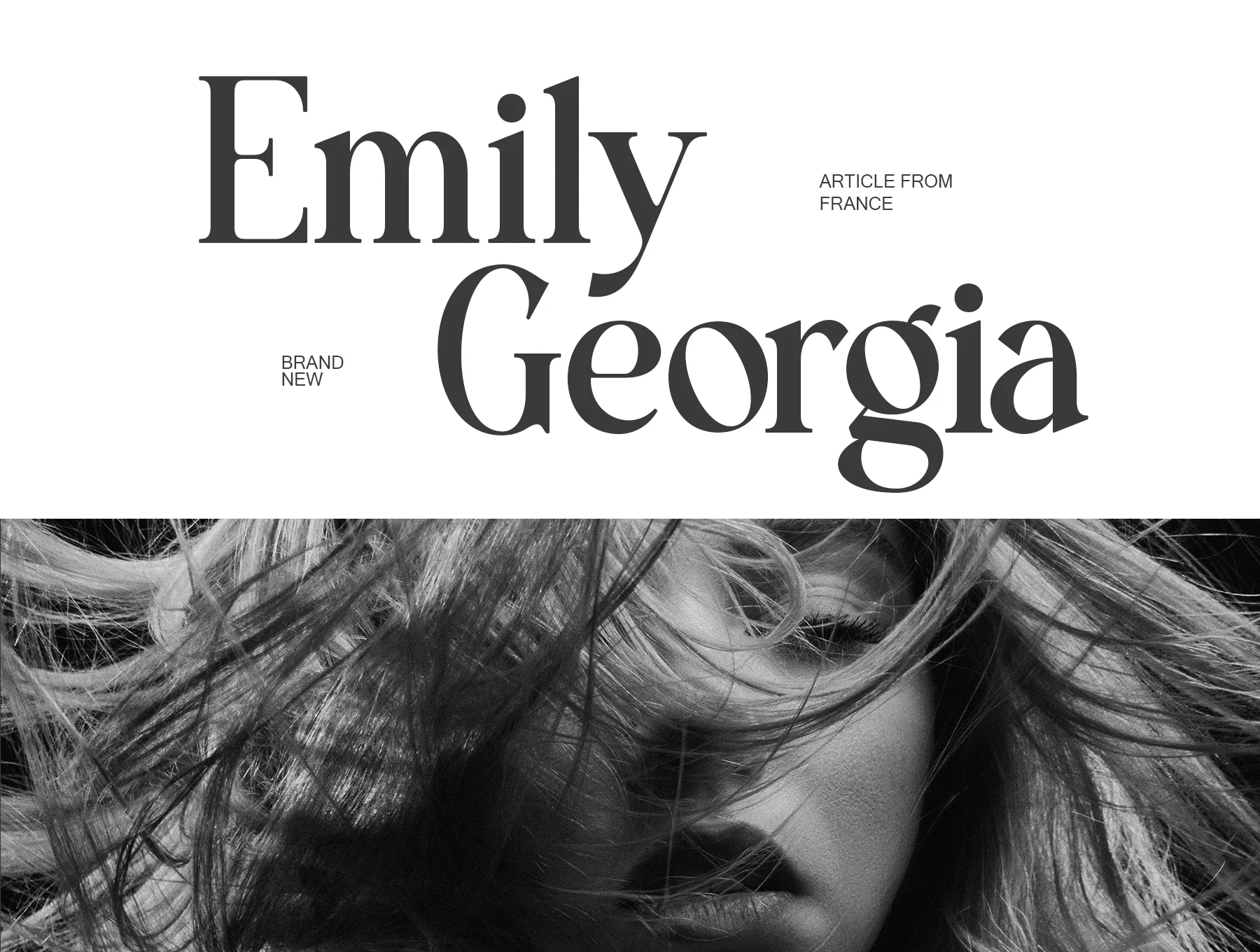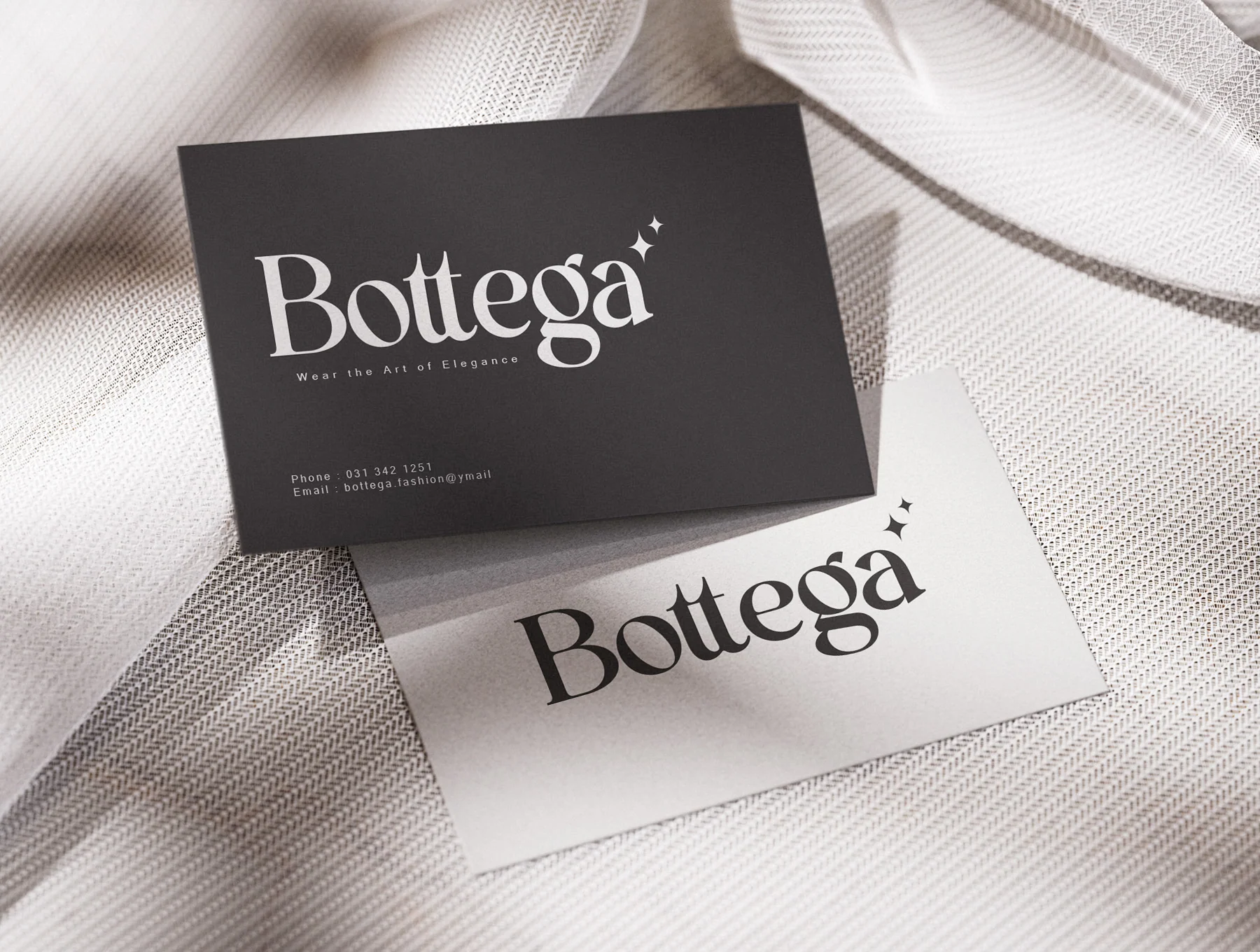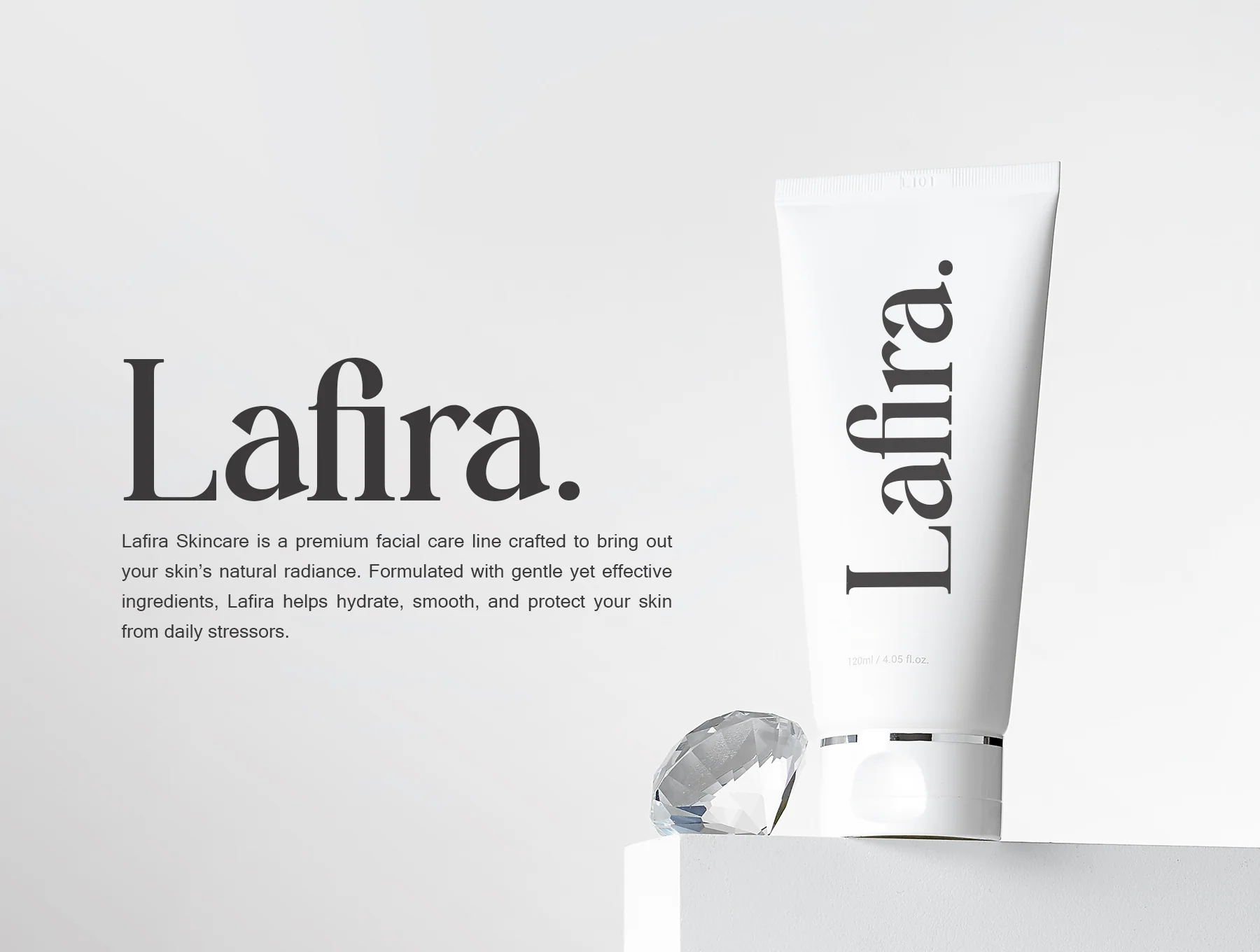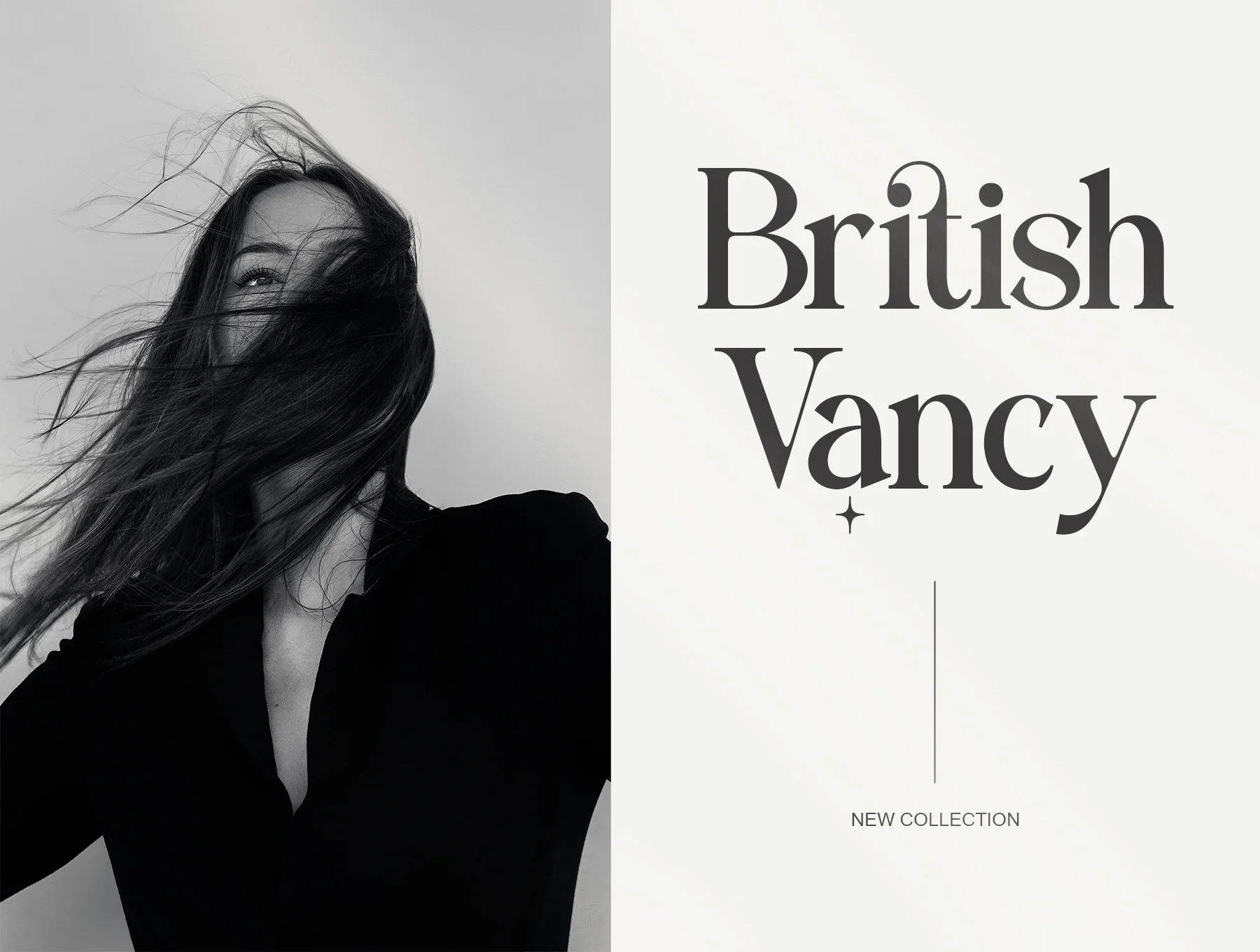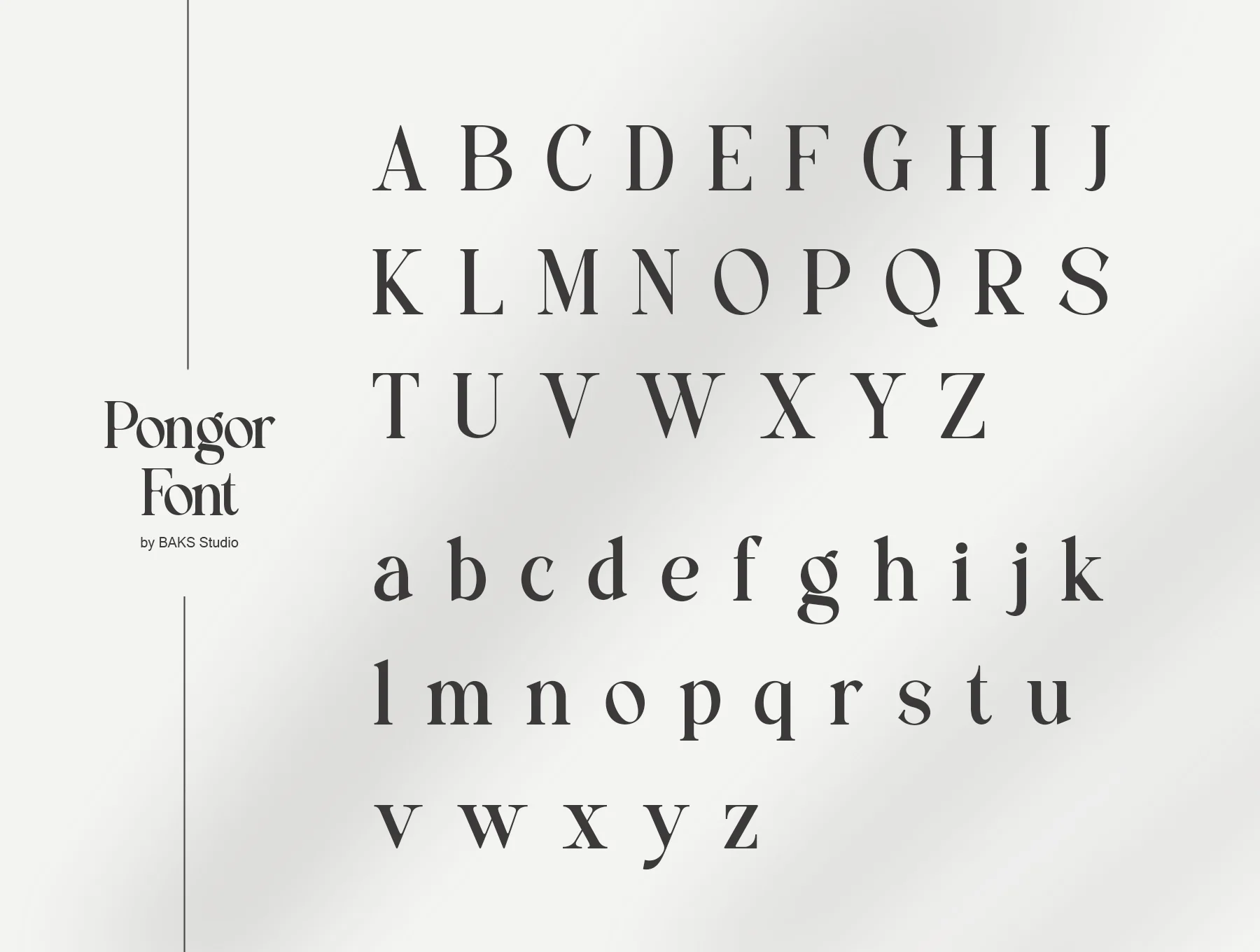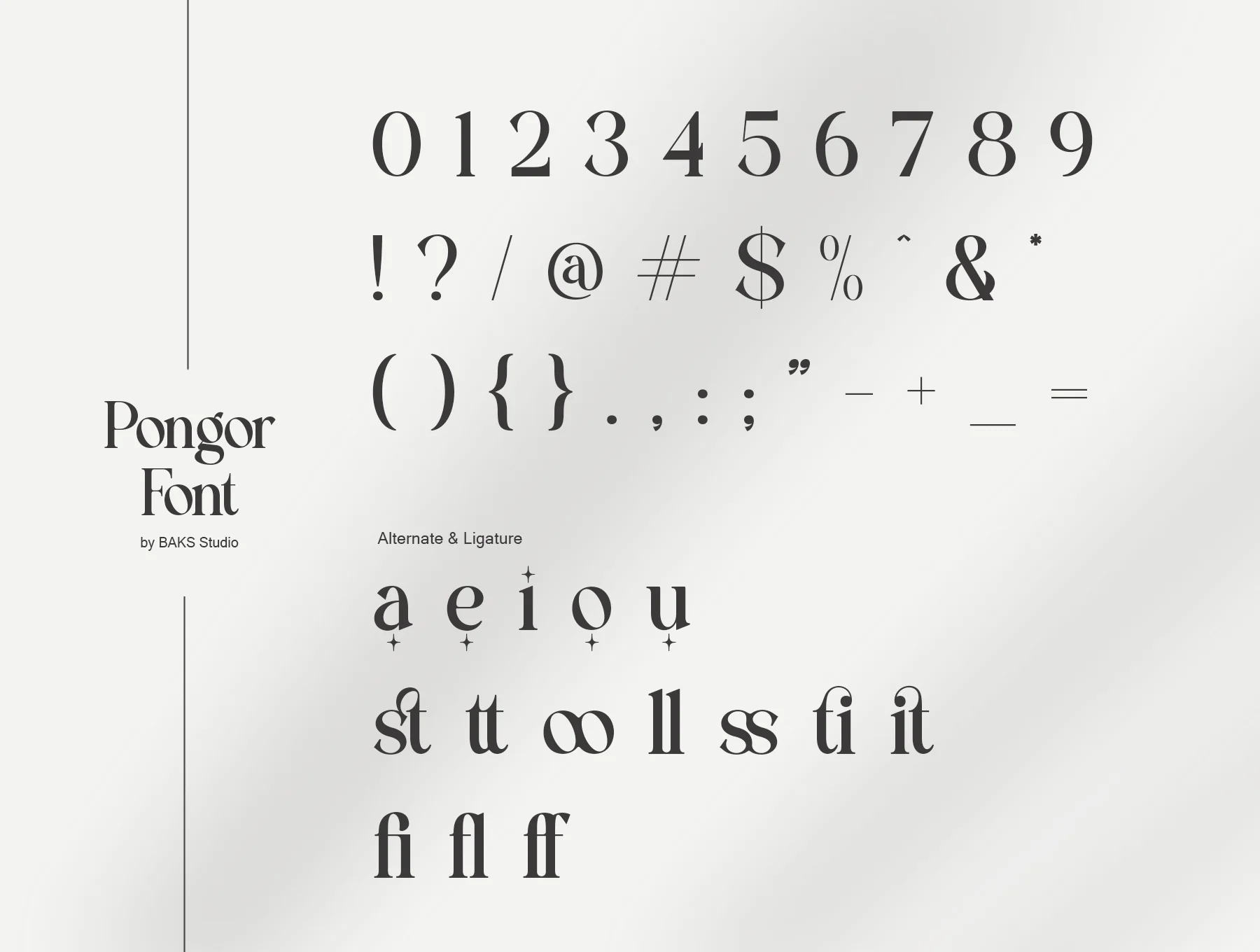
PONGOR FONT
A Sleek and Elegant Serif
CAPITAL LETTERS
small-letter text
numerals and symbols
support for many languages
Pongor is a retro serif typeface with refined elegance, blending a strong yet lively feel for premium, modern designs. It includes uppercase, lowercase, numbers, punctuation, multilingual support, stylistic alternates, and ligatures. Supplied in OTF and TTF formats.